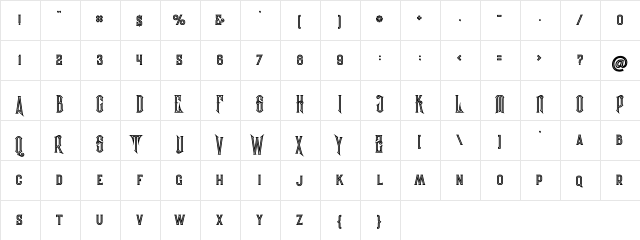
Evolve Inline Inline
Design Context for Evolve Inline Typeface
Evolve Inline brings ornamental detail and strong personality to headlines and identities, where visual impact matters more than quiet functionality.
Font Pairing: Pair with a clean neutral sans-serif for body copy to let Evolve Inline's character lead without overwhelming the composition.
Pro Tip: Use Evolve Inline exclusively at display sizes — it was designed to be seen, not read at length. Let a neutral companion handle body copy.